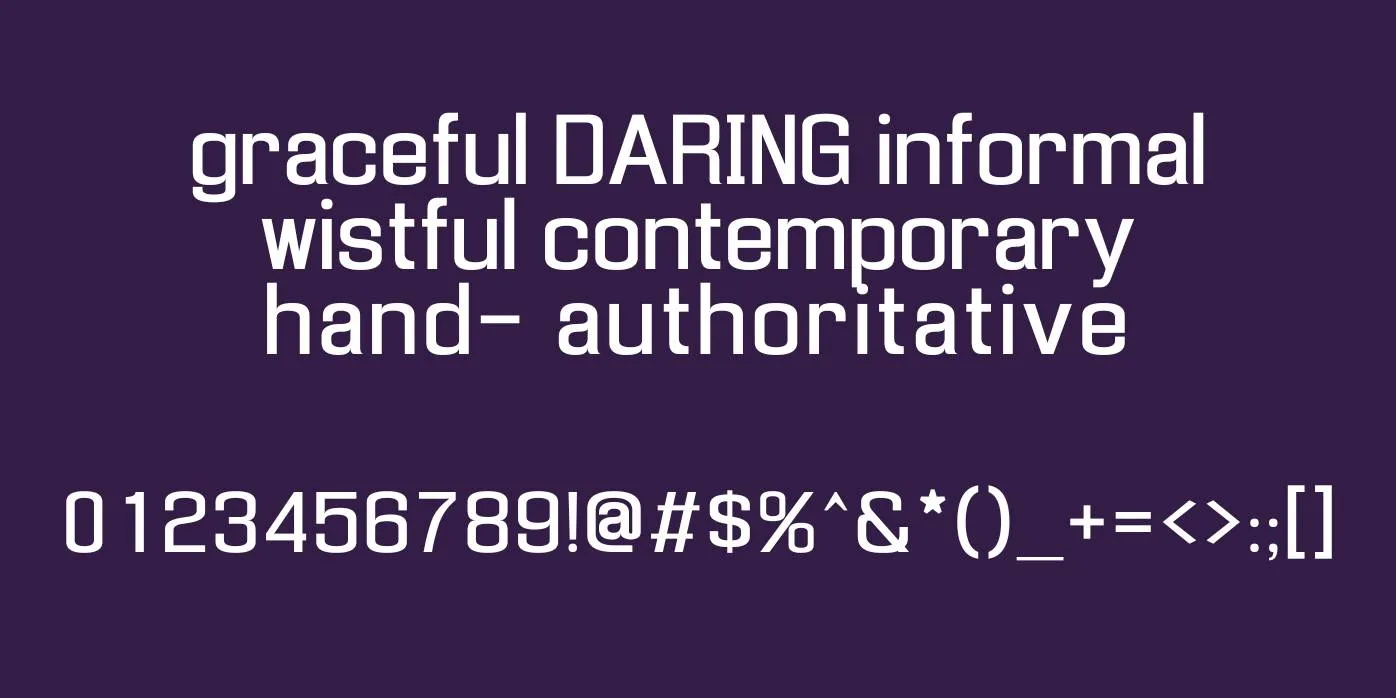
Enigmatic Font
Darren Rigby is the designer of this typeface. Enigmatic Font is a Sans Serif type of font. The characters of this typeface are human eye-friendly, bold, readable, and fantastic. There are two different styles for this texture.
They are the regular and italic styles. There are 249 unique glyphs for this font. This typeface is free to use in all types of projects and designs. You do not need to buy any license to utilize this texture.